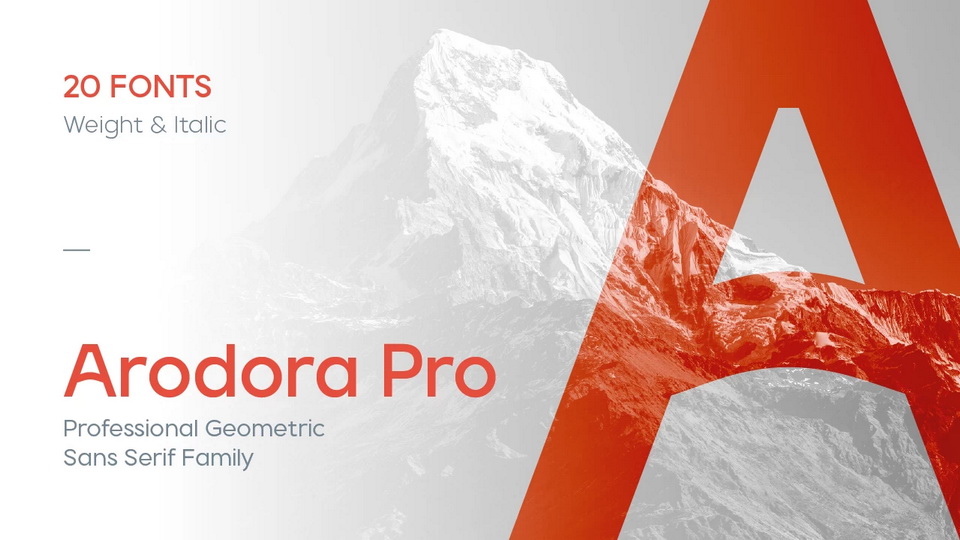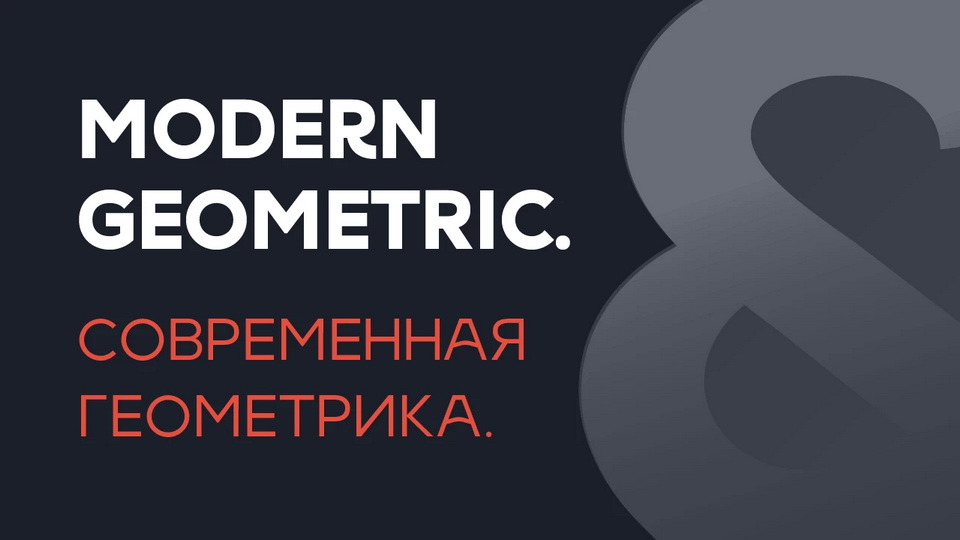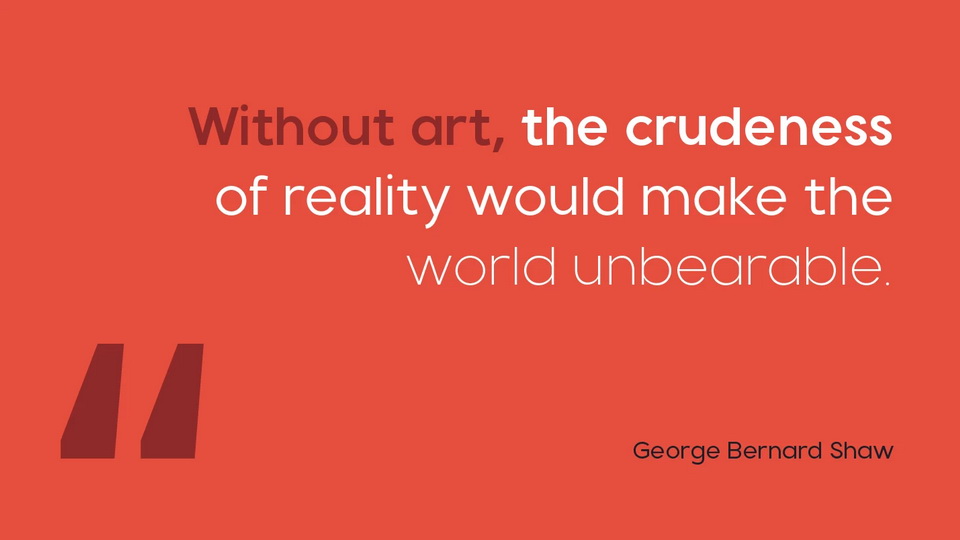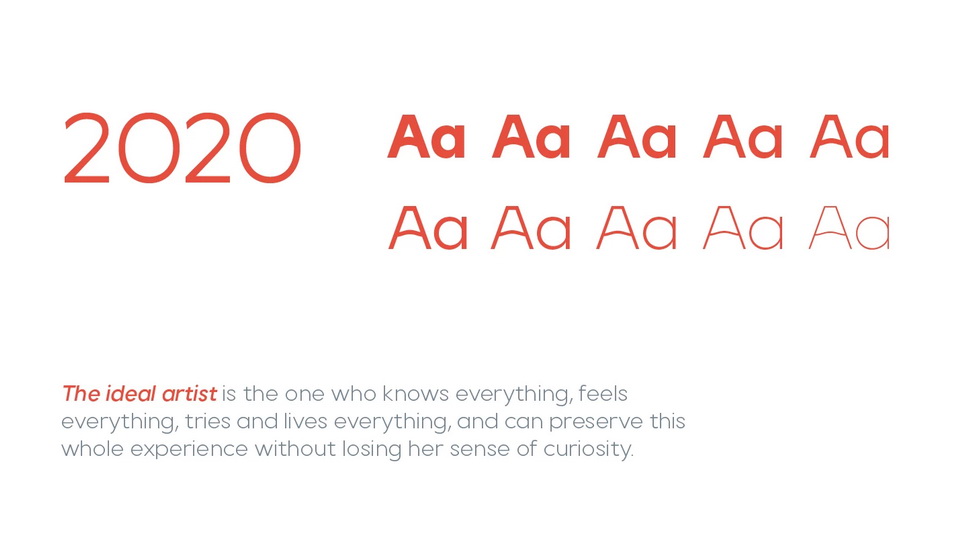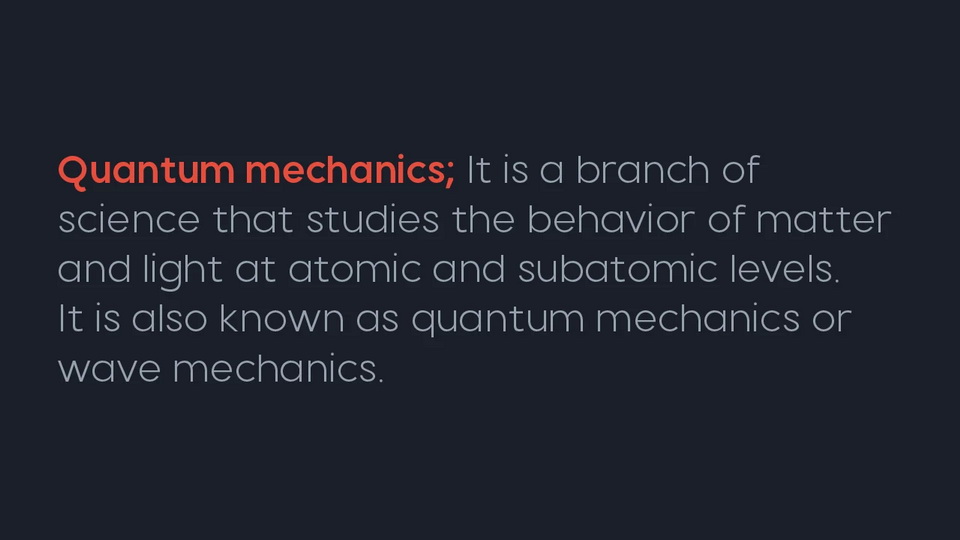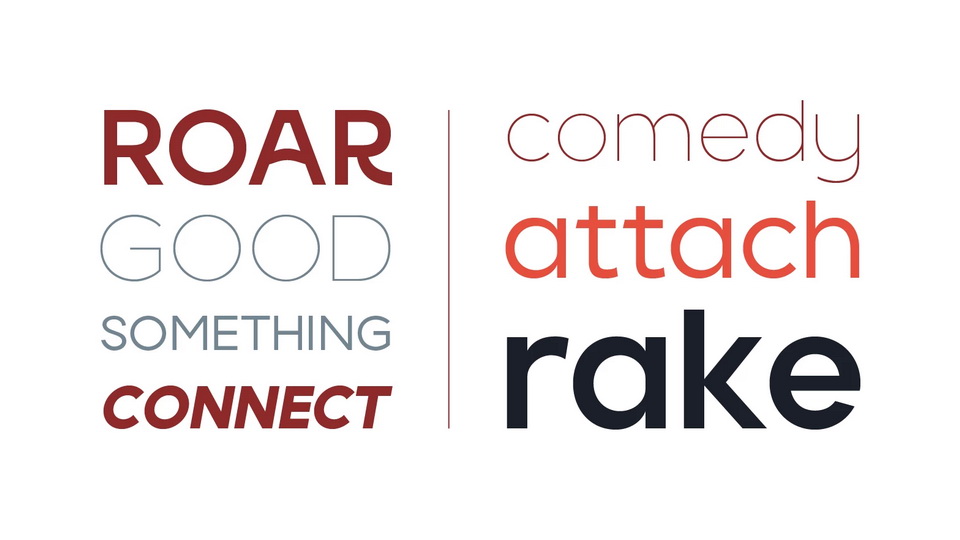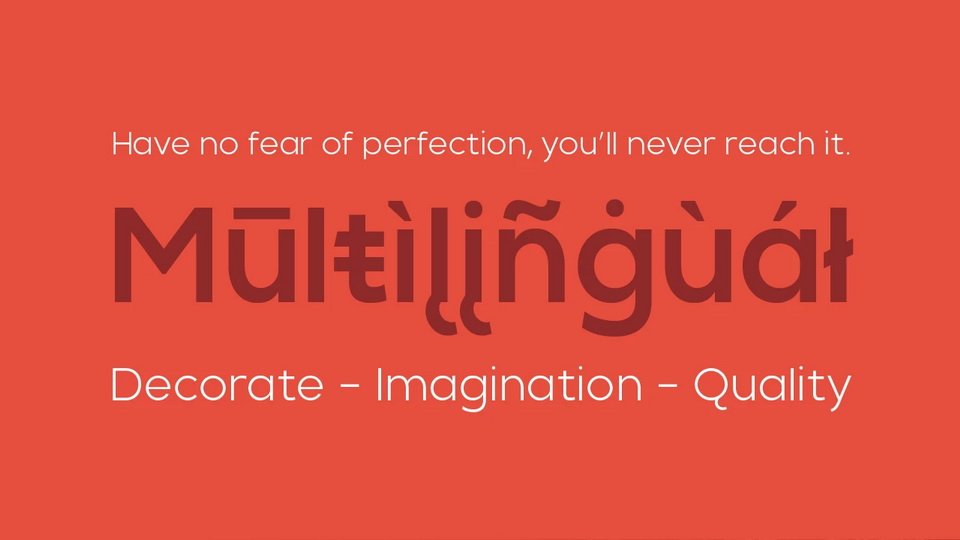
Arodora is a creative sans serif family with modern and geometric lines. It easily adapts to all kinds of creative graphic works and screen applications and reflects you well with its modern appearance.
Corporate identities, web designs, mobile applications, ui / ux designs will give you an advantage thanks to its unique appearance.